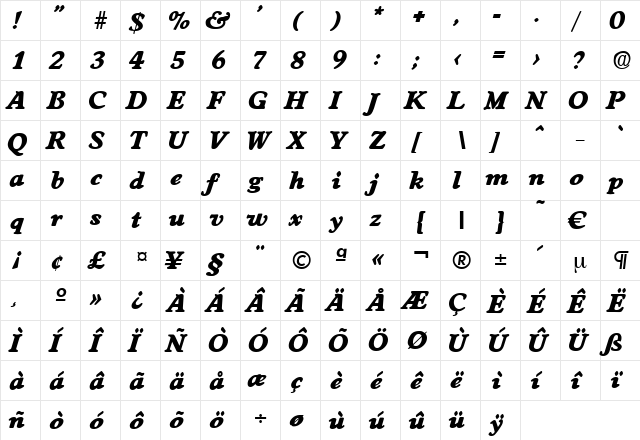
Worchester-ExtraBoldIta Regular
Design Context for Worchester-ExtraBoldIta Typeface
Worchester-ExtraBoldIta takes a measured approach to typography — its balanced proportions and neutral character make it a reliable workhorse for both digital and print work. Its bold stroke weight gives it real presence on the page.